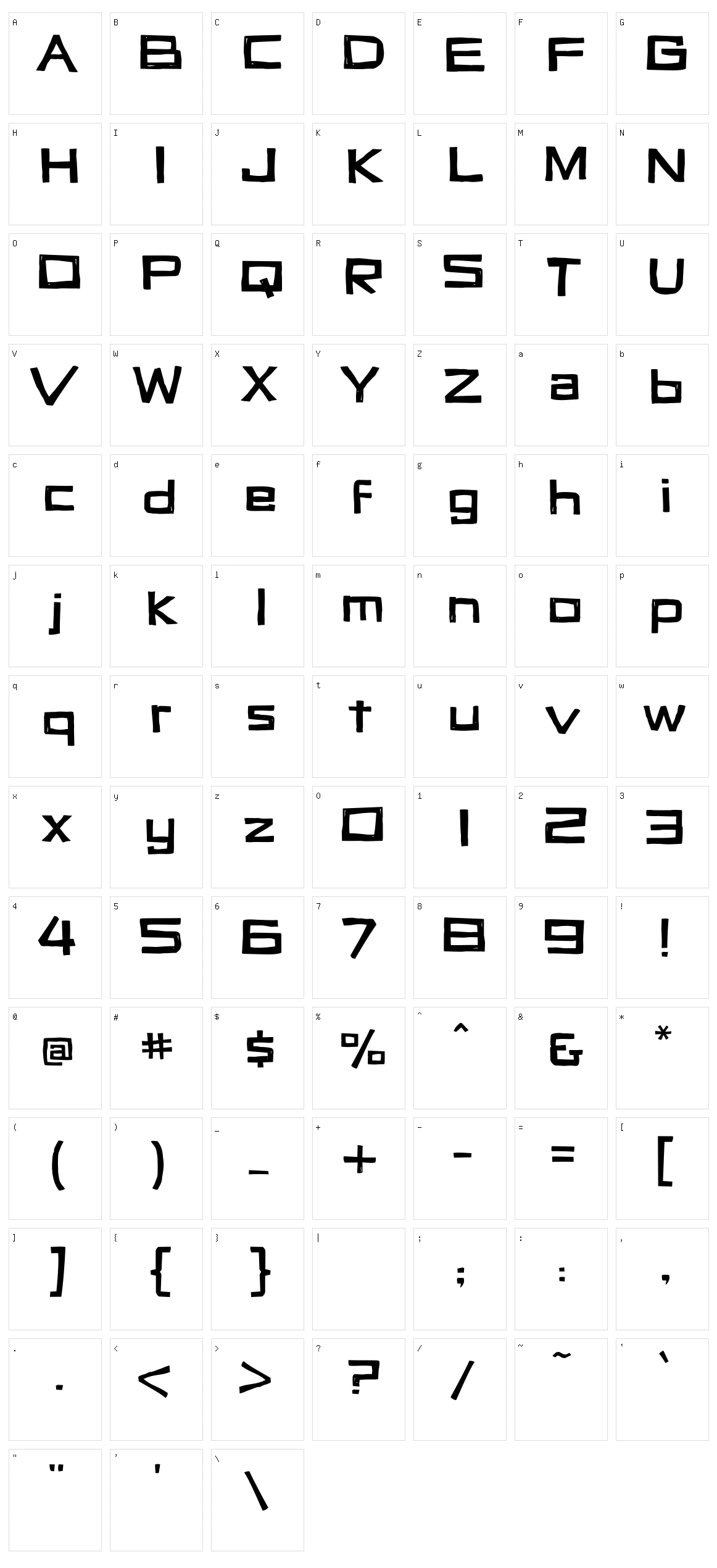
The free font Vertigon is carefully designed by Andrew Bertram, showcasing a thoughtful balance of creativity and usability and falls under the Cartoon font style. When you download the ZIP file, it contains only 15.08 KB of font files, making it lightweight and quick to download. Please review the license details below to understand permitted usage and distribution rights. If license information is not available, we recommend using this font for personal projects only or contacting the author directly for commercial usage permissions.